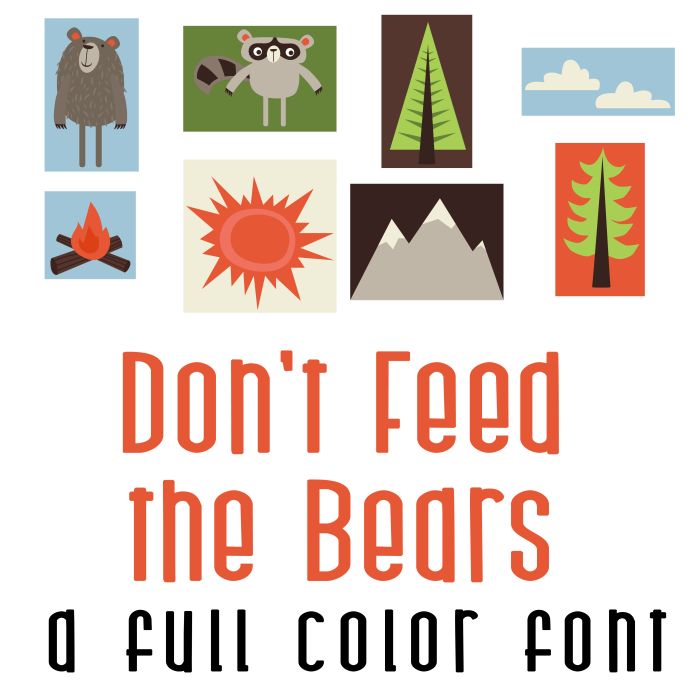
This fun full color font features 26 fun wild animals, outdoor imagery, and camping themed items! Perfect for cards, crafts, parties, gifts, decor, planner stickers, classrooms, scrapbook pages and more!